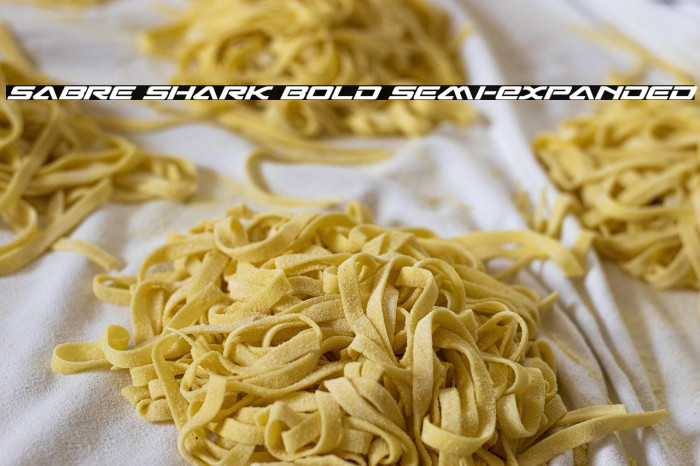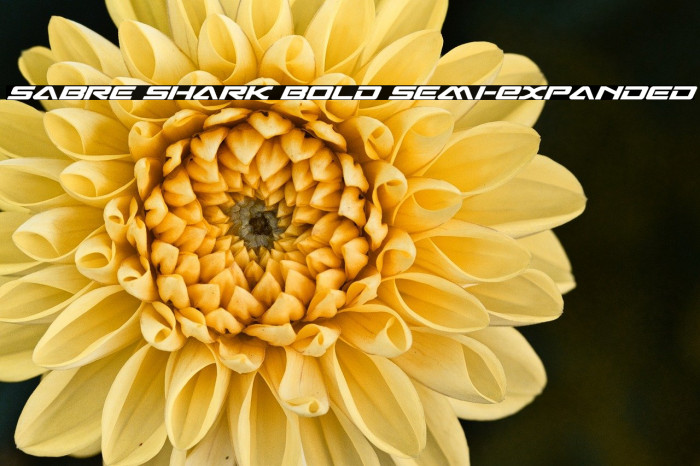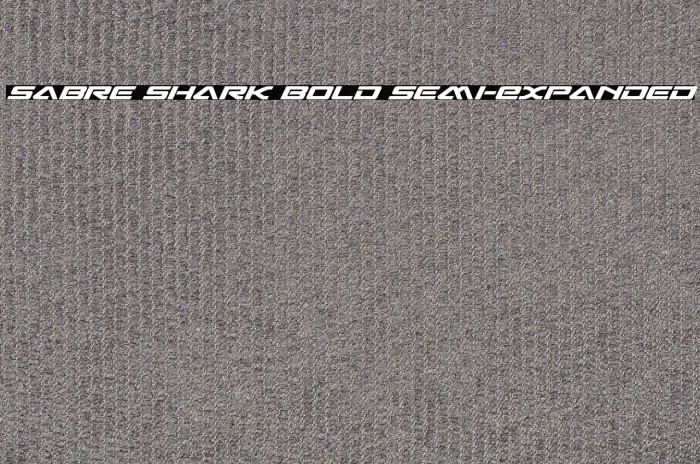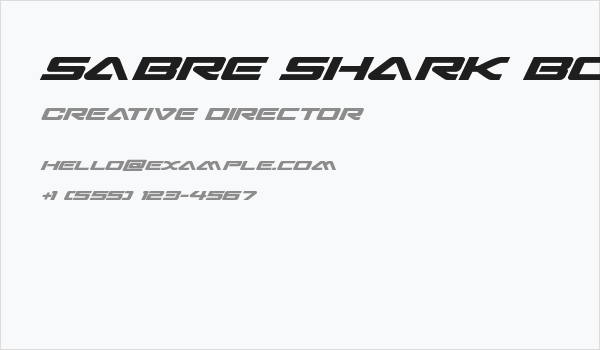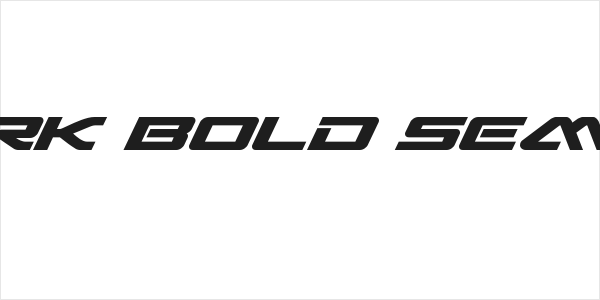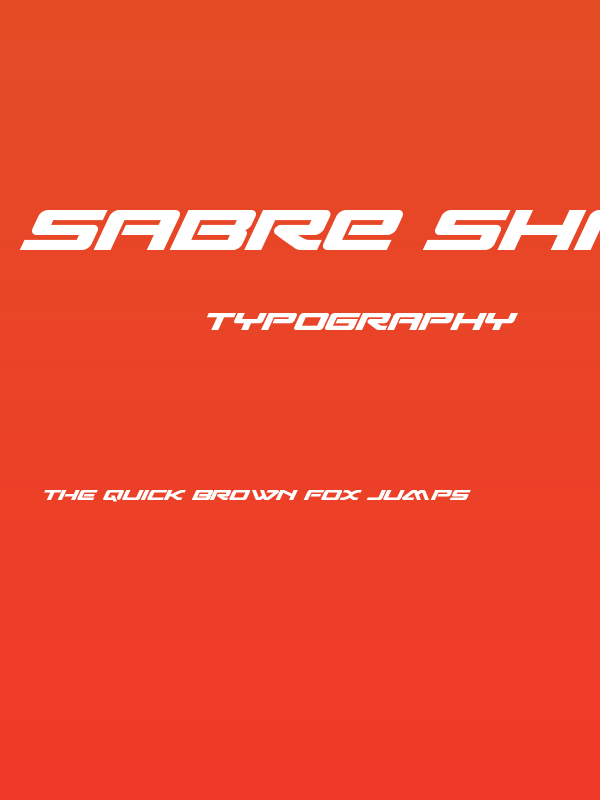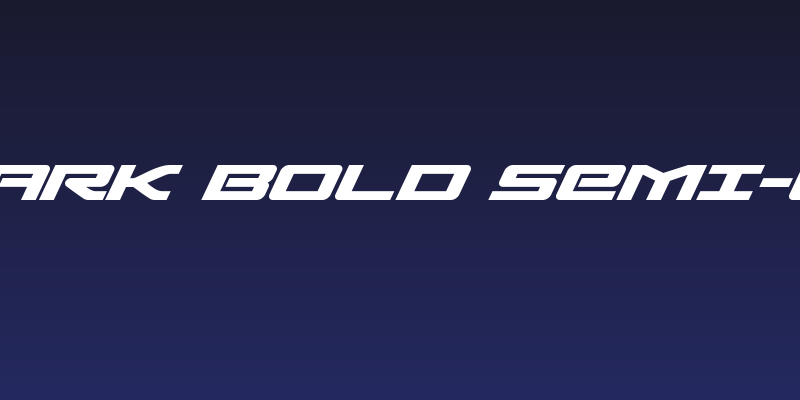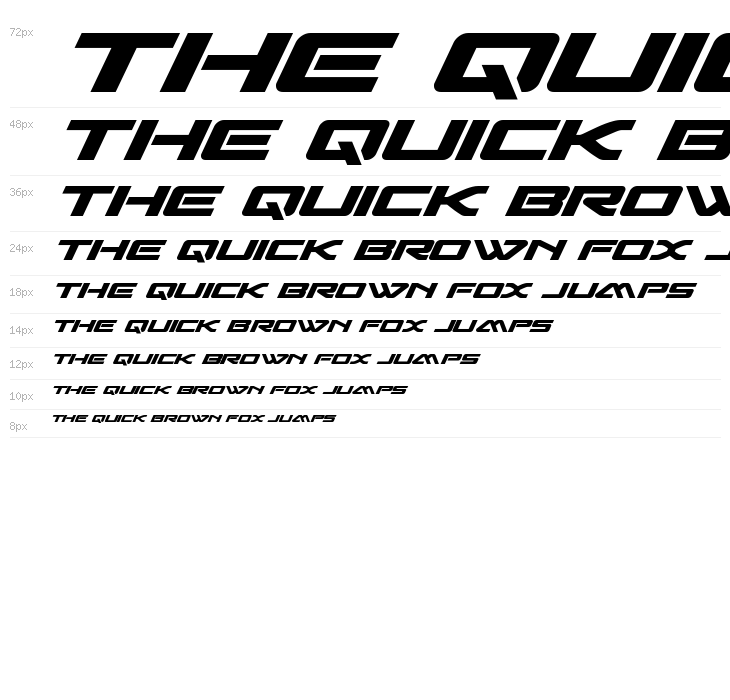
Sabre Shark Bold Semi-Expanded Font
Sabre Shark Bold Semi-Expanded Description
This font features a bold and semi-expanded style with a futuristic and angular design. The characters are sharply defined with a distinct slant, giving a sense of motion and speed. The uppercase letters are uniform in height, while the lowercase letters maintain a consistent style, enhancing readability. Numbers and special characters are designed with the same angular and dynamic characteristics, making them suitable for modern and tech-oriented themes. The overall appearance is sleek and assertive, ideal for projects that require a strong visual impact.
| Proposed Projects | Ideal for technology branding, sports team logos, video game titles, and sci-fi themed posters. |